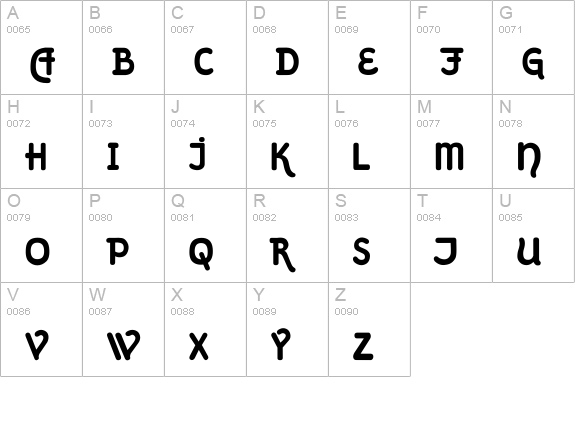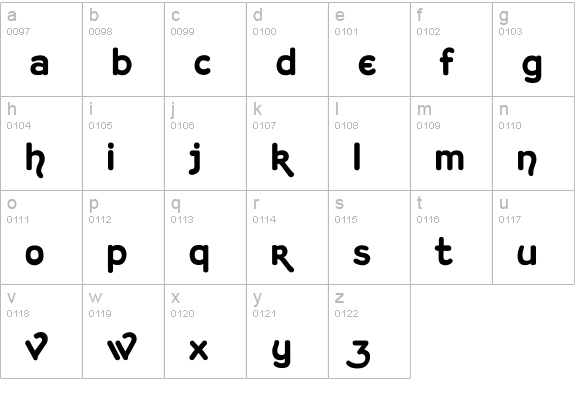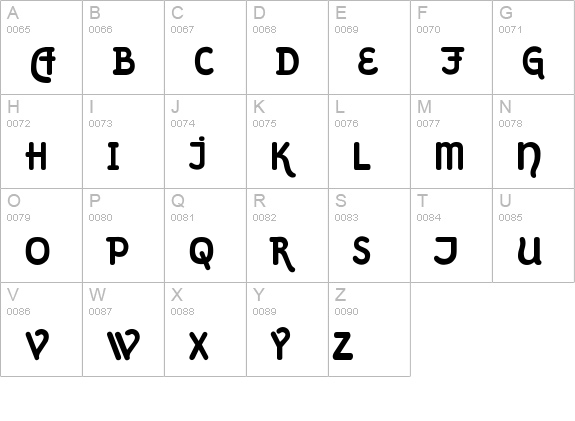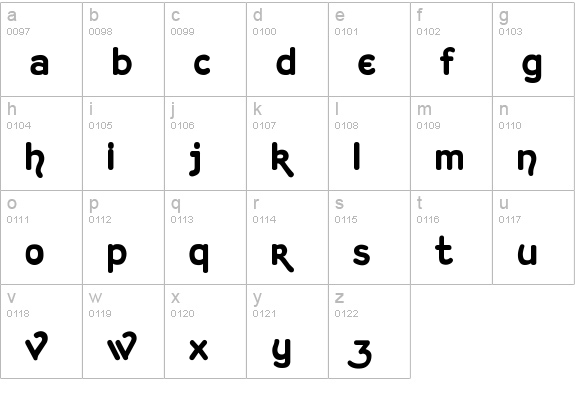
Kingthings Hand is a charming and whimsical font that brings a touch of playfulness and personality to any design project. With its handwritten style, this font offers a unique and organic feel, capturing the essence of handwritten notes and messages. The Kingthings Hand font is perfect for adding a personal touch to invitations, greeting cards, logos, and more. Its irregular letterforms and varying stroke widths create a delightful sense of movement, making it an ideal choice for projects that require a casual and relaxed vibe. One of the best things about Kingthings Hand is that it is freely available to download at FontsMarket.com. This means that anyone can easily access and enjoy this delightful font without any cost. Whether you are a professional designer looking to add a touch of creativity to your projects or an individual who wants to add a personal touch to your everyday communication, this font is a fantastic choice. With Kingthings Hand, you can effortlessly capture the essence of handwritten messages and create a warm and inviting atmosphere in your designs. So go ahead and download this free font from FontsMarket.com and let your creativity soar. Whether it's for personal or commercial use, Kingthings Hand will surely add a unique and charming touch to your design projects.